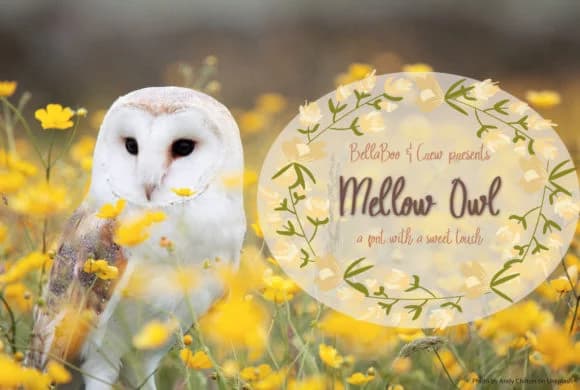
Mellow Owl by BellaBoo is a handwritten script with a gentle, nostalgic character that brings authentic warmth to personal stationery and creative design work. The font draws rich inspiration from those quiet, reflective moments of childhood correspondence, capturing that natural pen-on-paper feeling for modern creative applications. Wedding invitation suites, vintage thank you cards, and handwritten-style greeting cards all benefit tremendously from its warm, flowing letterforms and approachable tone that feels truly personal.
Beyond traditional stationery, Mellow Owl excels on scrapbooking layouts, where its natural letter flow adds visual interest without overwhelming photographs and memorabilia. Gift tags, journal spreads, and custom product labels for artisan packaging all gain authentic character and personality from this script. Small business owners frequently choose it for boutique packaging design and branding work that calls for homemade warmth without sacrificing legibility or professional polish. The letterforms maintain excellent readability at various print sizes while retaining that conversational, intimate quality that mass-produced fonts simply cannot deliver.
Designers tackling children's stationery, DIY craft projects, or nostalgia-driven brand identity find Mellow Owl strikes the perfect balance between visual charm and practical, everyday usability. Get Mellow Owl on Creative Fabrica and bring handwritten warmth to your next creative project.
Mellow Owl Font is a script font that shines as a display or heading face. Pair it with a clean sans-serif or serif font for body text β the contrast creates a clear hierarchy while the two styles stay balanced and easy to read.
Mellow Owl Font